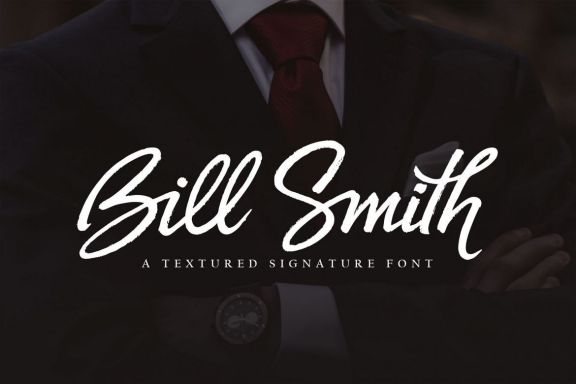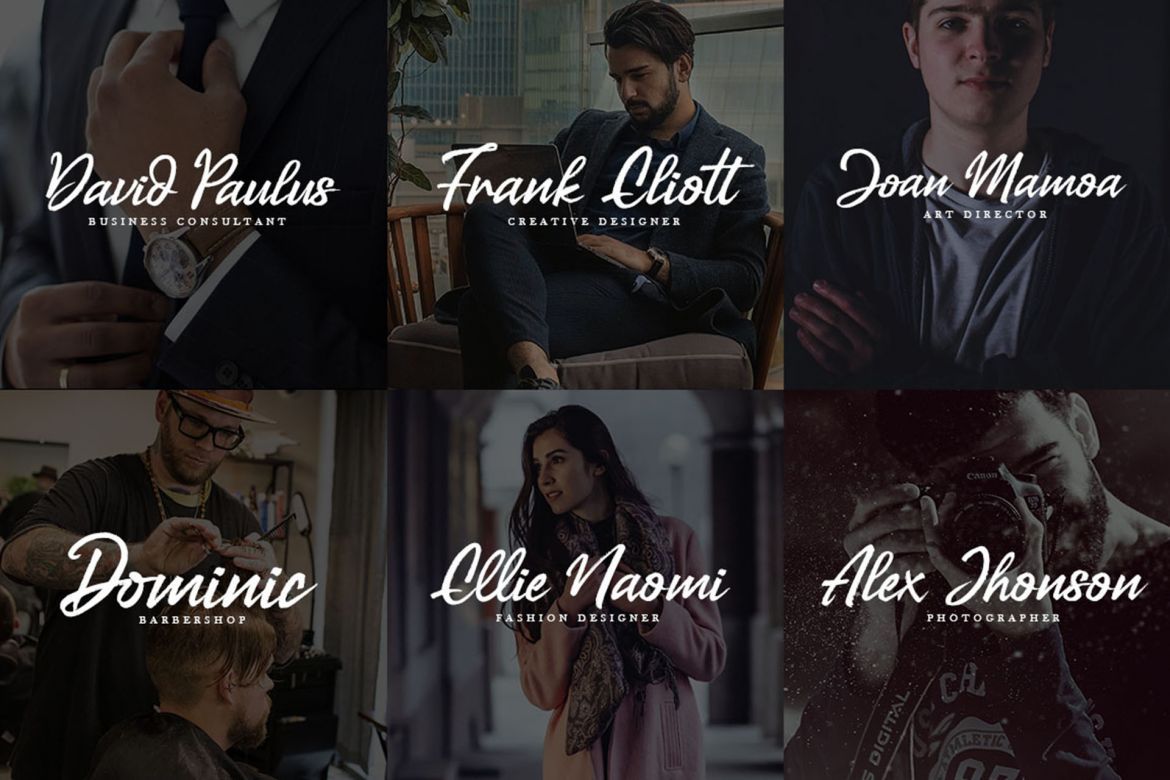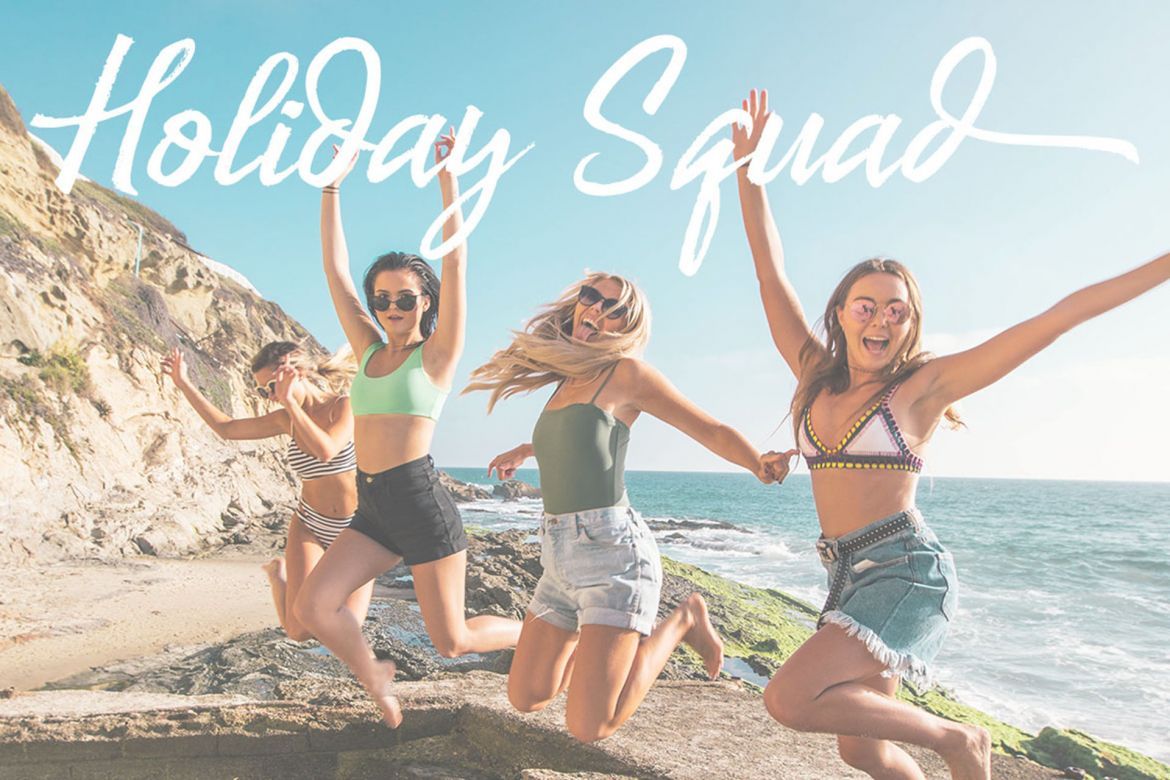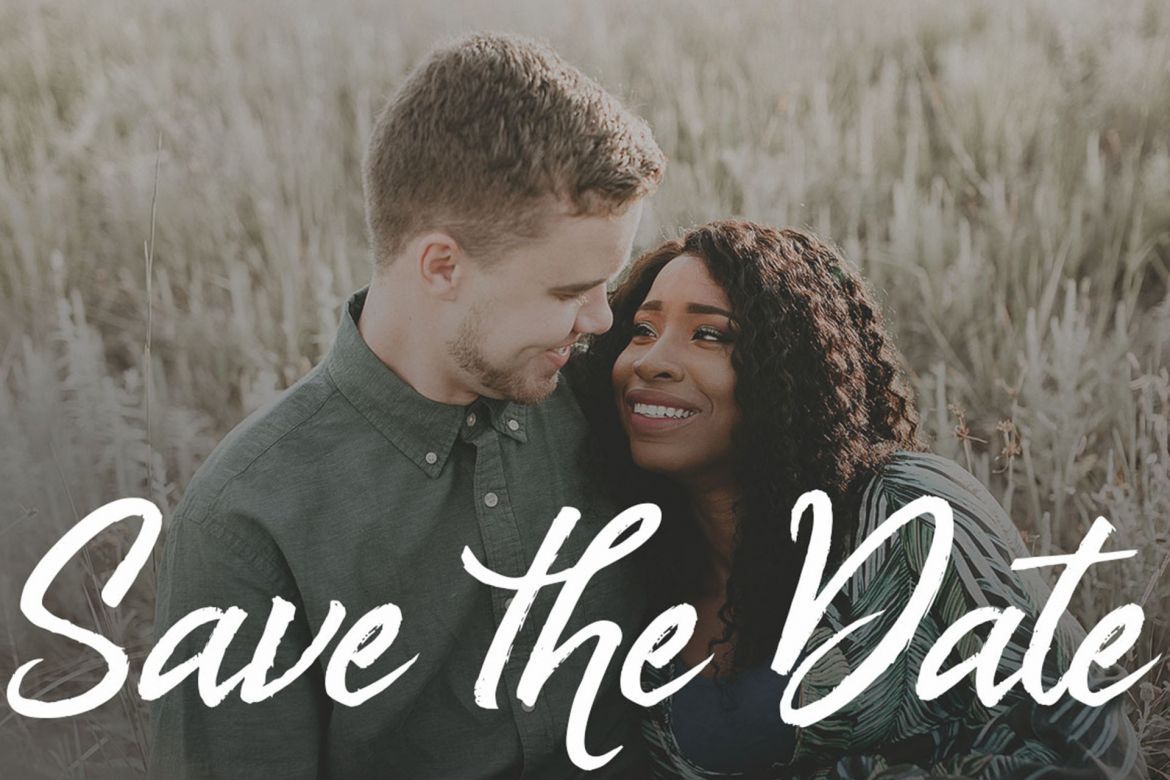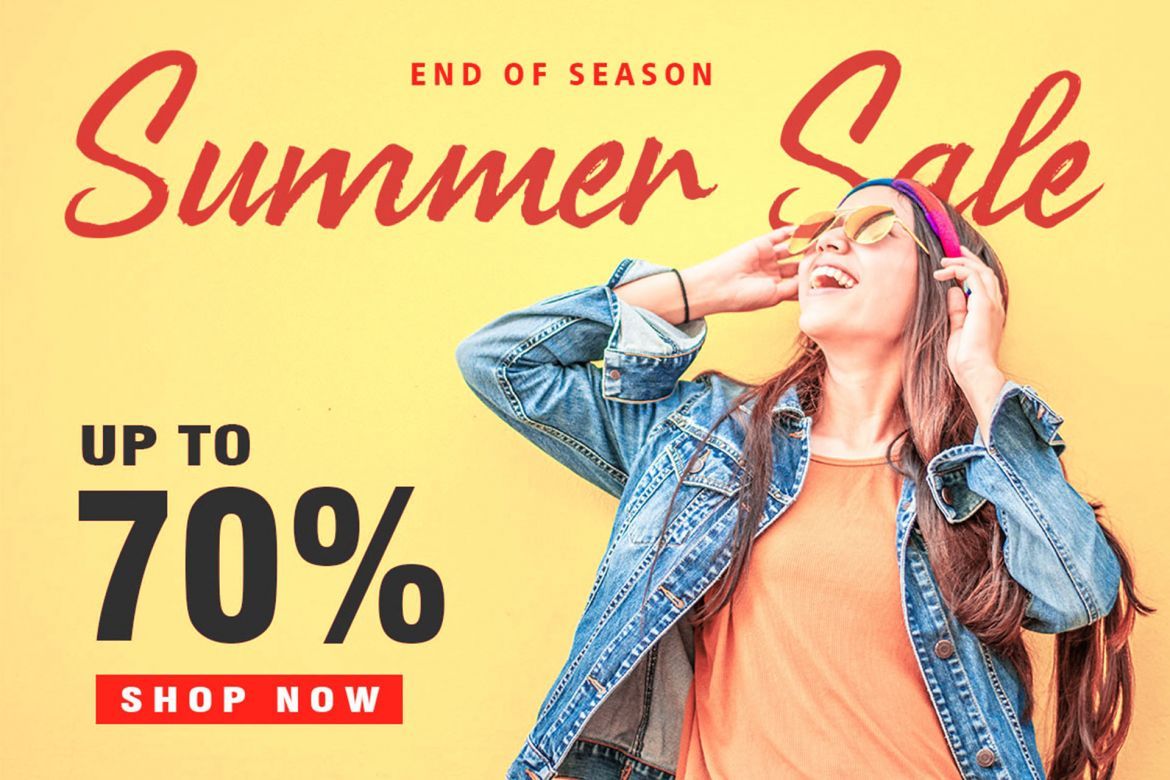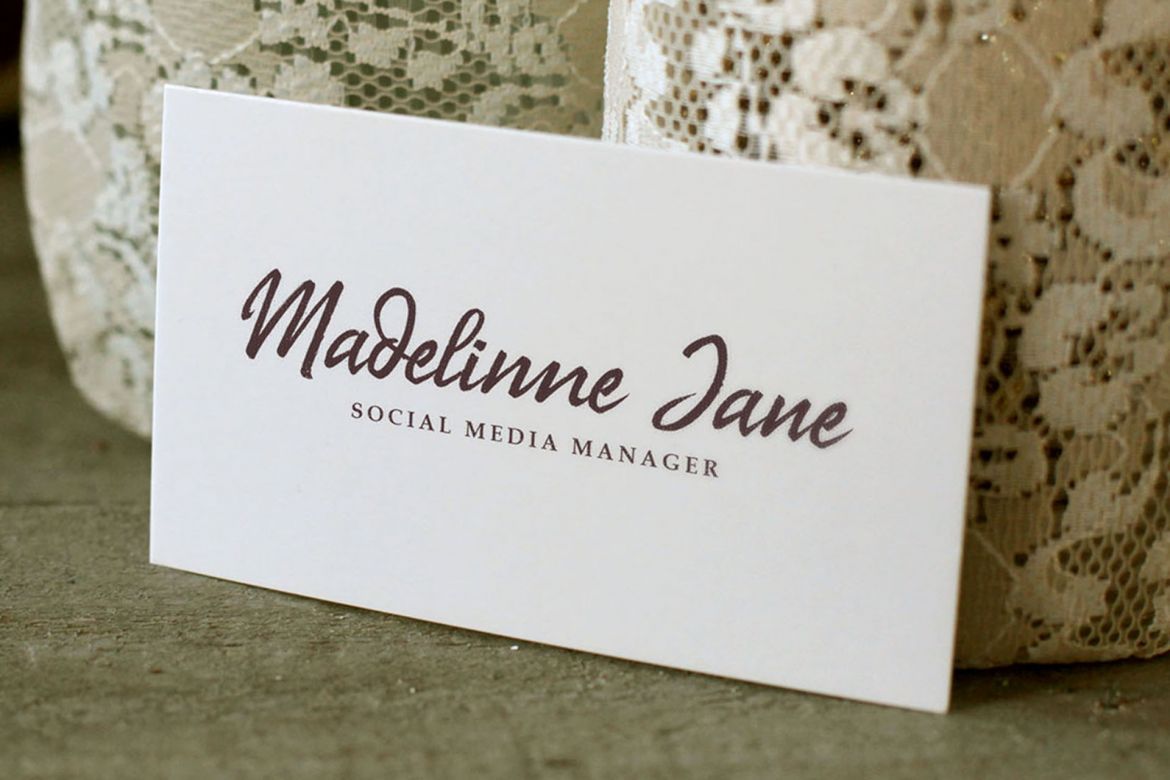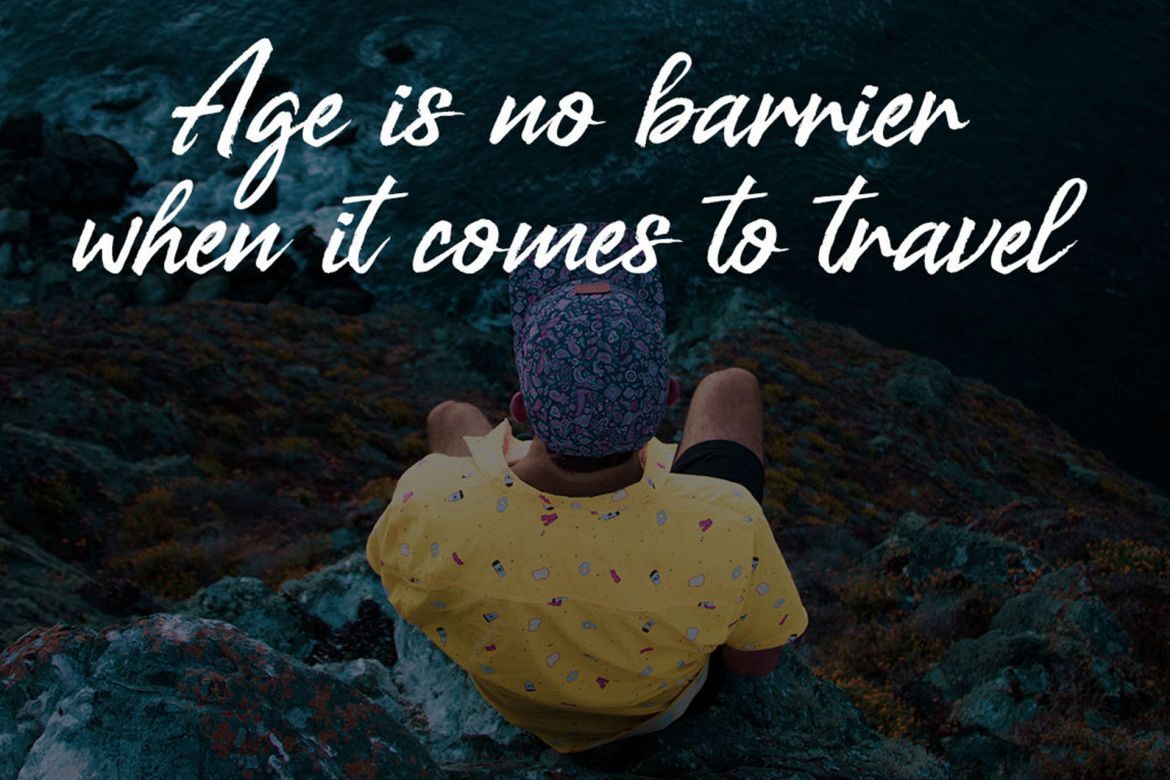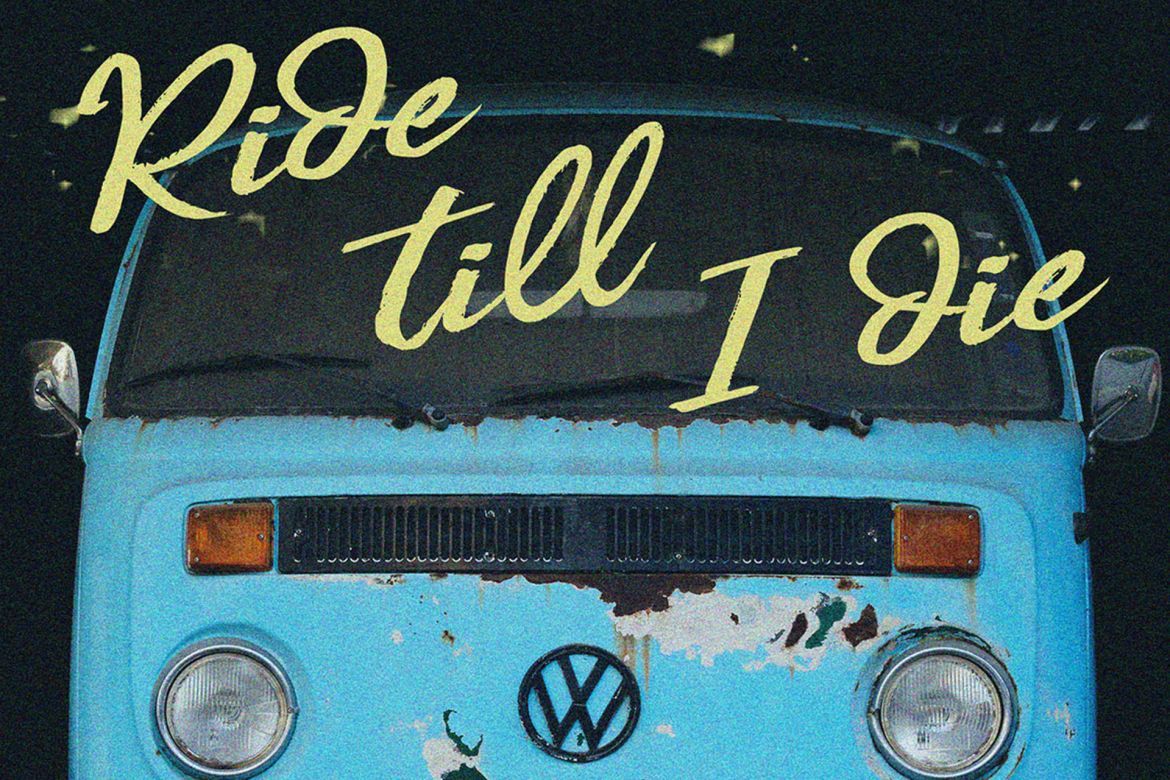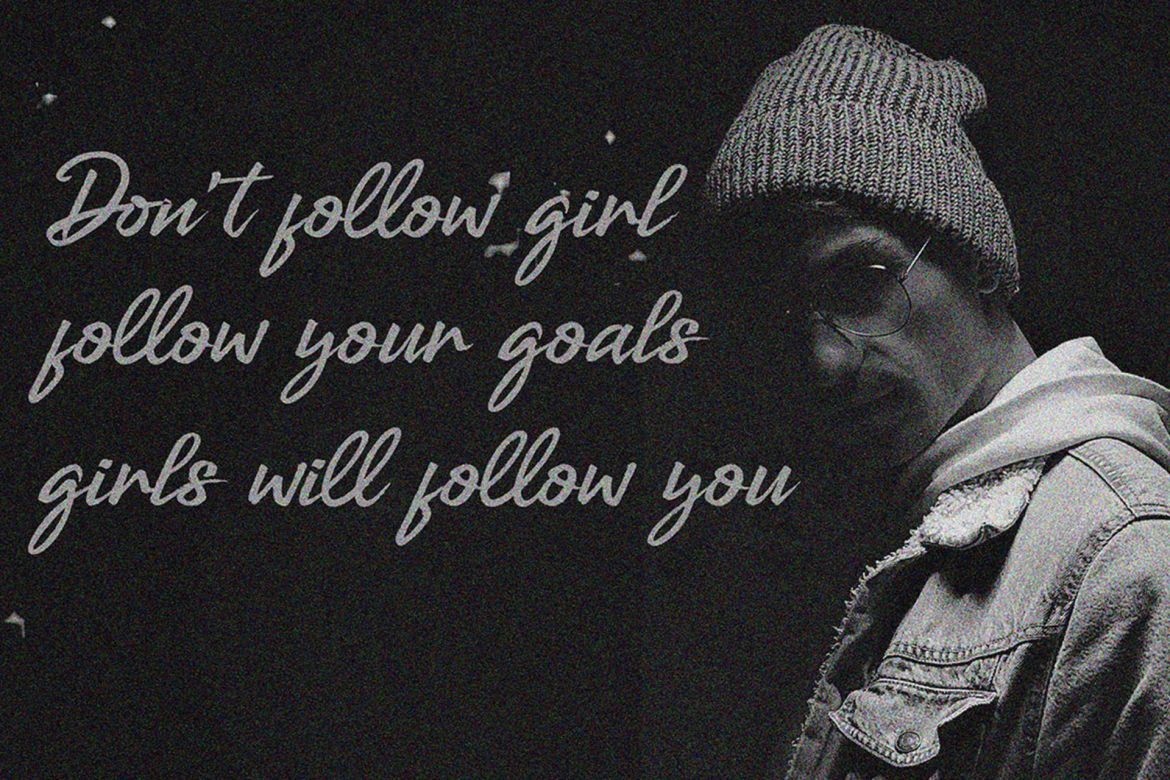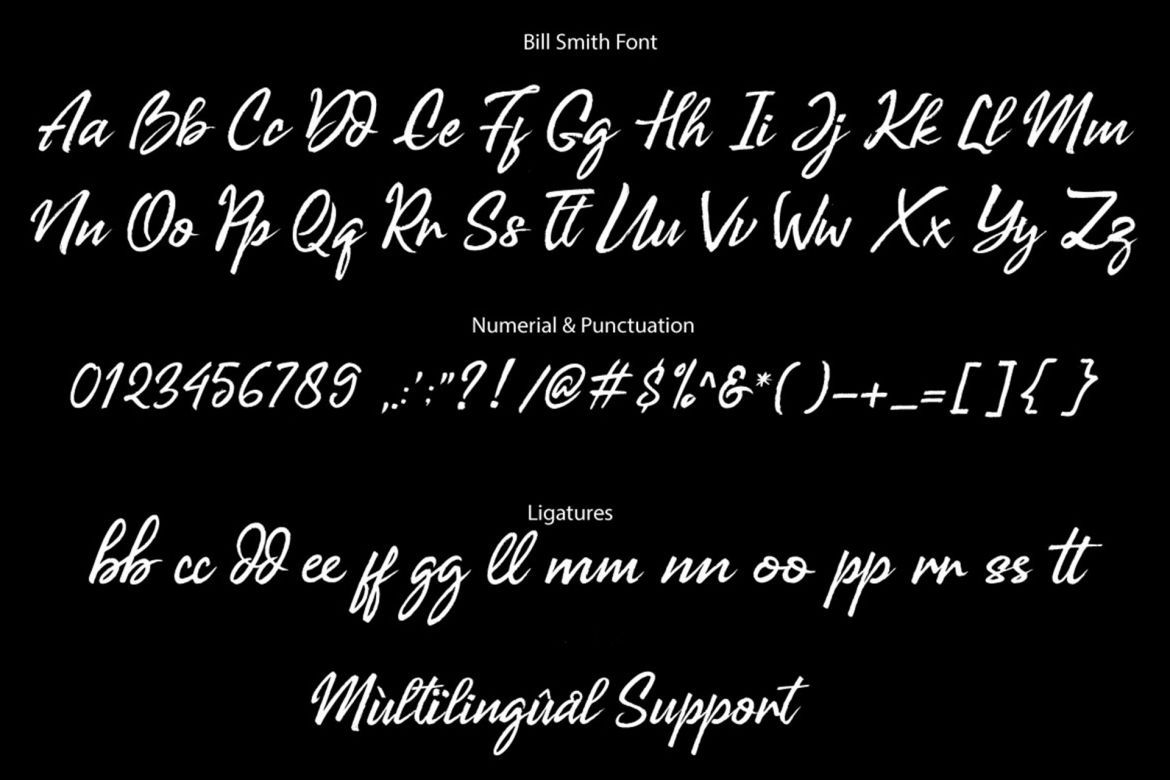
Bill Smith Handwritten Font
The Bill Smith is a signature font with a textured style. The basis if this gorgeous font is it’s simplicity.
It’s perfect for photography, signatures, branding, and every other designs which needs a simple, yet strong typeface.
• each font has stylish handwritten style
• hand brush font